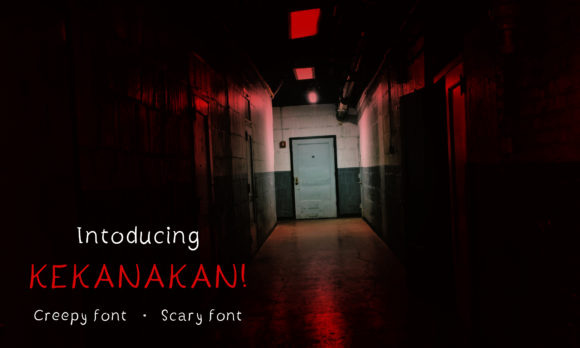
Introduction to Kekanakan Font
As a designer, have you ever found yourself in the middle of a creative project, struggling to find the perfect font to convey the spooky atmosphere you’re aiming for? I know I have. That’s why I’m excited to share with you a game-changing design resource that’s sure to elevate your horror-themed projects: the Kekanakan Font.
This creepy display font is perfect for designers who want to add an extra layer of eeriness to their Halloween designs, or any other project that requires a touch of the macabre. With its unique, hand-drawn style and high-quality design, the Kekanakan Font is a valuable addition to any designer’s toolkit.
Key Features of Kekanakan Font
- Features a transparent background, making it easy to use in various design applications.
- Designed with a unique aesthetic, the Kekanakan Font is perfect for adding a touch of elegance to any design project.
- Includes a comprehensive character set, covering a wide range of languages and characters.
Honest Review: Kekanakan Font
I recently stumbled upon the Kekanakan Font while searching for a unique design resource for my creative project. As a designer, I was excited to give it a try and see if it would elevate my design to the next level.
- What works well: ✨ The font has a beautiful, hand-drawn feel that adds a touch of personality to any design. It’s perfect for creative projects that require a bit of whimsy.
- What works well: ✨ The font is highly customizable, allowing me to tweak the size, color, and spacing to fit my design needs.
However, I did encounter a few limitations with the Kekanakan Font. ⚠️ One of the main issues is that it doesn’t come with a transparent background option, which can make it difficult to use in certain design situations. Additionally, the font may not be suitable for projects that require a more modern or minimalist aesthetic.
Overall, I’m impressed with the Kekanakan Font and would definitely recommend it to fellow designers. With a little creativity, it can be used to create stunning designs that really stand out. Just be aware of the limitations, and you’ll be golden.
Tips for Getting the Most Out of Kekanakan Font
Experiment with different font sizes and styles to achieve the desired look. Use the font in combination with other design elements to create a cohesive design. Don’t be afraid to try new things and push the boundaries of what’s possible with the Kekanakan Font.